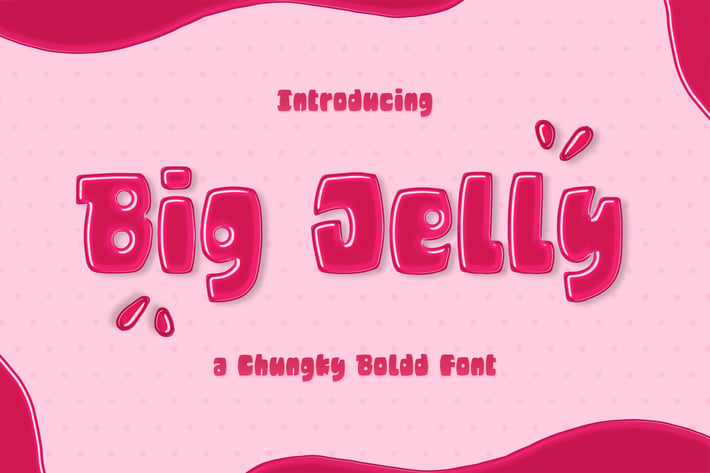
Big Jelly - Chunky Bold Font
Big Jelly is a chunky bold font that puts a smile on your projects and will inspire you to create something fun and memorable.
It is perfect for headings, flyers, greeting cards, product packaging, book cover, printed quotes, logotype, design, album covers, etc